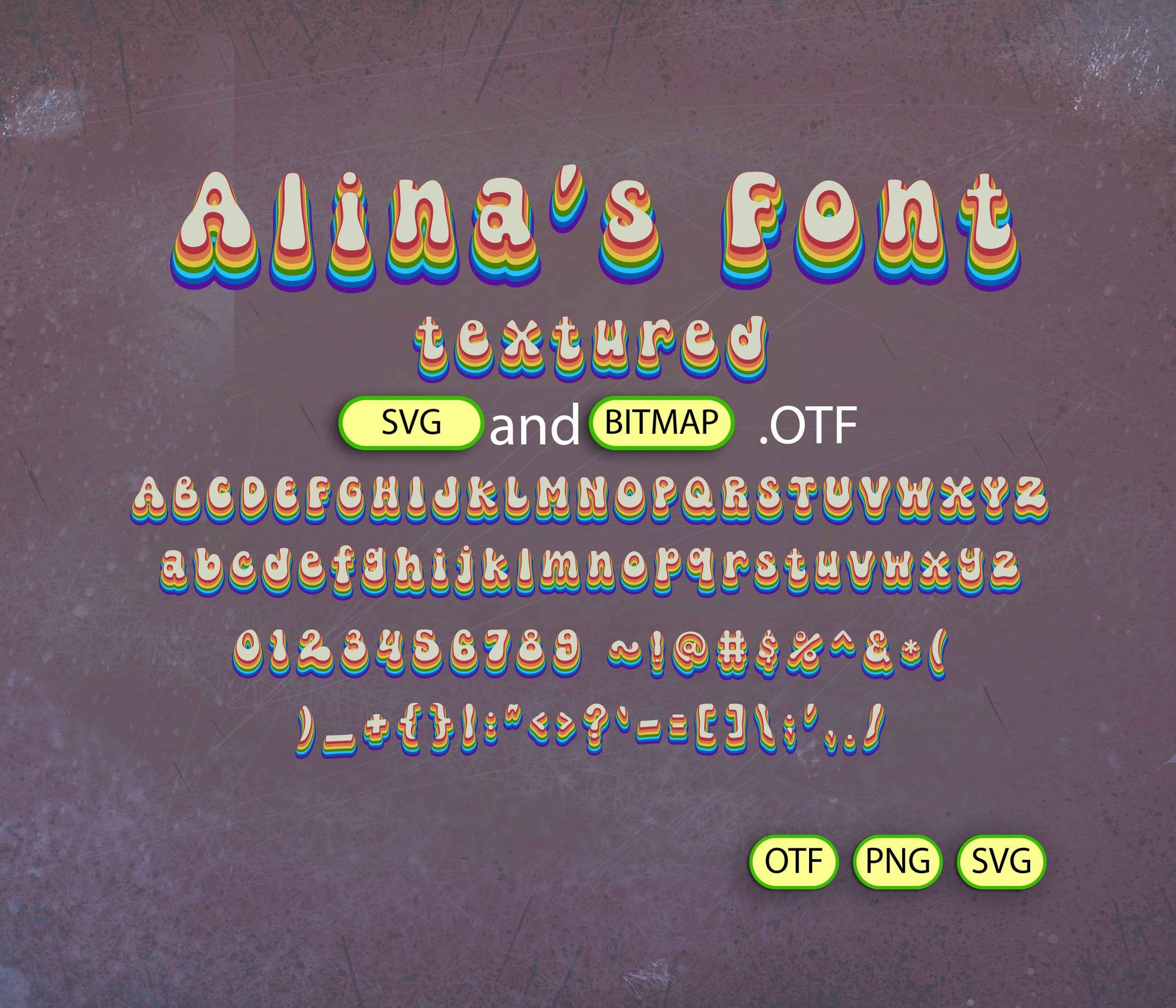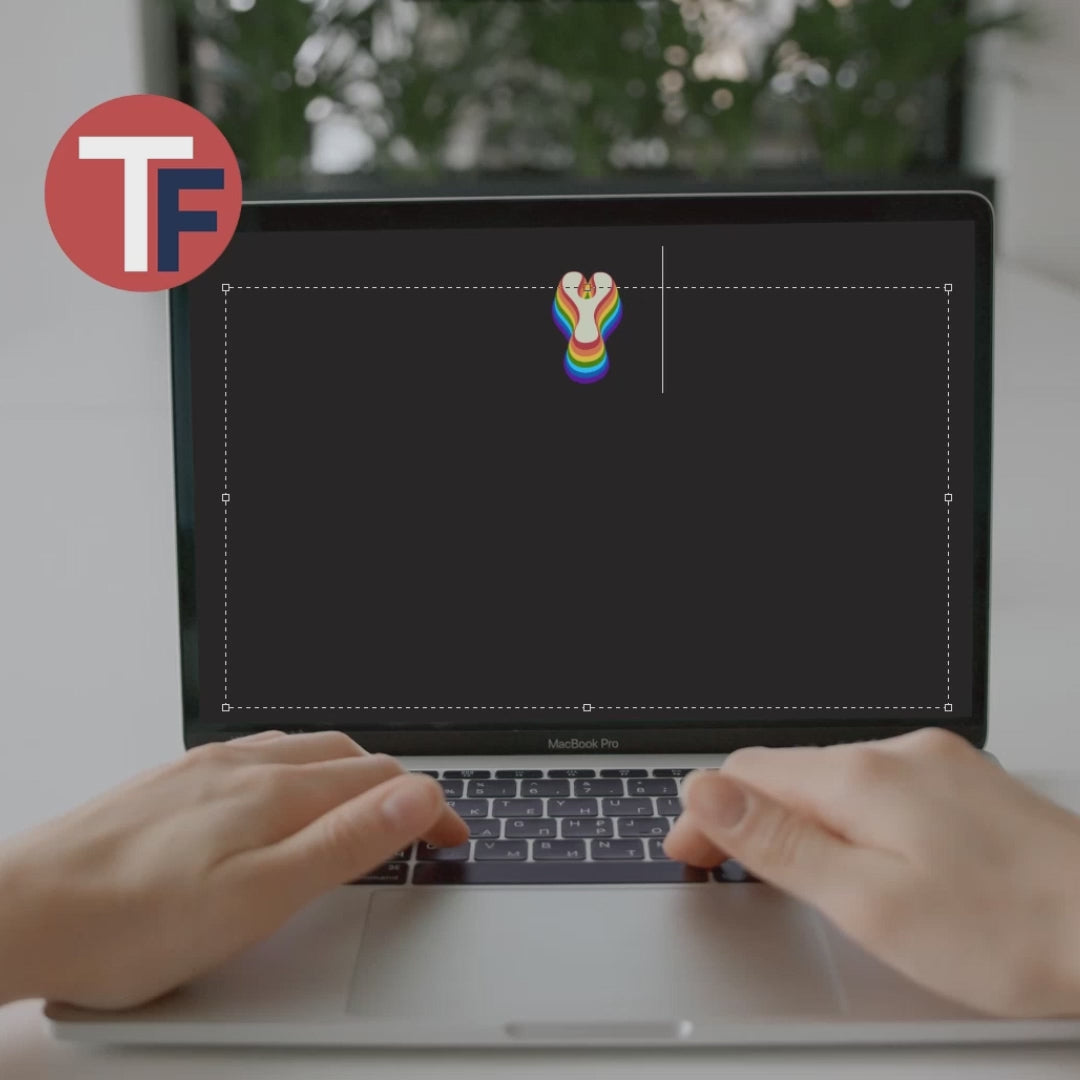
Groovy Psychedelic Splash of Rainbow Font Textured
Immerse yourself in the vivid and spirited world of the Groovy Rainbow font, a colorful homage to the psychedelic era that defined a generation with its bold, vibrant, and free-spirited style. This font embodies the essence of the 60s and 70s psychedelic movement, where colors swirled and danced in unison, evoking a sense of freedom and creativity. Each character in the Groovy Rainbow font is a celebration of this flamboyant era, designed to capture the hearts of those who revel in color and retro flair.
What Font is Groovy Font?
Envision a typeface that encapsulates the dynamic, colorful, and carefree spirit of the psychedelic era. Our Groovy Rainbow font is crafted to mirror the iconic and vibrant typography of the 60s and 70s, characterized by its curvy forms and multi-colored patterns. It includes an extensive character set, featuring alphabets, numbers, and special symbols, making it a perfect choice for designs that require a touch of nostalgia, playfulness, and a burst of color.
What Can You Do With Groovy Font?
The Groovy Rainbow font is versatile and ideal for a variety of creative and expressive applications:
- Retro-Themed Design Projects: Perfect for posters, album covers, and graphic designs that need a psychedelic touch.
- Event Invitations: Create vibrant and eye-catching invitations for retro-themed parties, music festivals, or art events.
- Fashion and Apparel Design: Ideal for designing clothing, accessories, and textiles that channel the colorful era.
- Digital Content and Social Media: Enhance online platforms with a retro, colorful font that stands out.
- Interior Decor and Artwork: Use the font for creating wall art, murals, or interior design elements with a 60s and 70s vibe.
- Marketing and Advertising Materials: Incorporate into campaigns or advertisements targeting a vintage or retro audience.
- Editorial Design: Use in magazines, brochures, or publications focusing on vintage fashion, art, or culture.
- Themed Restaurant or Café Menus: Bring a groovy flair to menus or signage in establishments with a retro theme.
- Creative Art and DIY Projects: Perfect for scrapbooking, crafting, and artistic projects inspired by the psychedelic movement.
- Product Packaging: Design unique packaging for products with a retro or colorful theme.
- Textured and FREE Non-Textured Variants: Each font is available in both a playful, textured style reminiscent of the 60s and 70s, and a clean, non-textured version for a more versatile use.
- Comprehensive Character Set: Offers a wide range of characters for complete design flexibility.
The Groovy Rainbow font is more than just a typeface; it's an expression of the colorful, vibrant, and free-spirited energy of the psychedelic era.